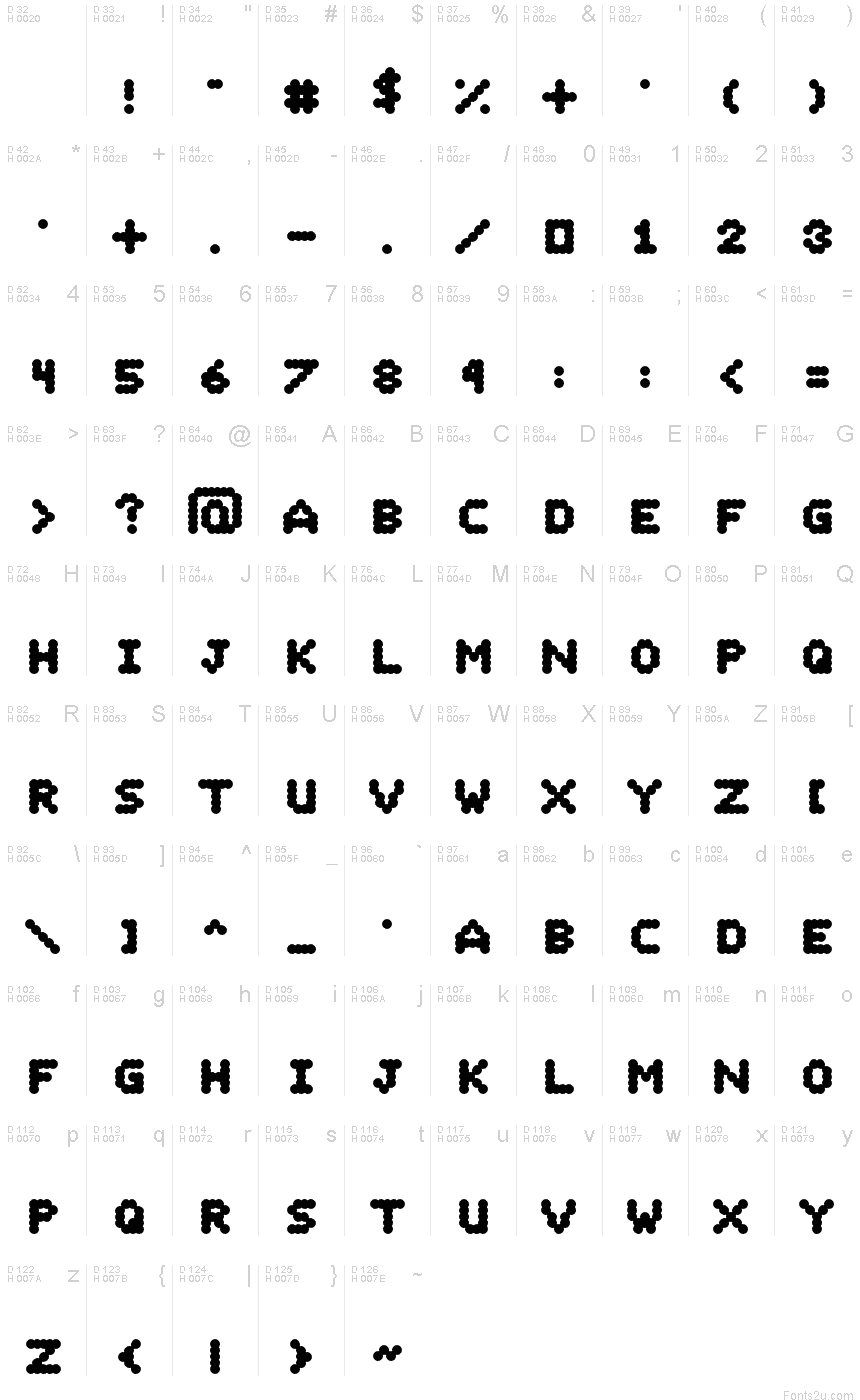
Bubble Regular
Bubble font by Sapphire11 is a free decorative display typeface that looks like it’s built from squishy, ink-black bubbles snapped tightly together. Each letter in the Bubble family feels chunky and tactile, like a string of glossy beads forming bold, blocky shapes that you can almost press with your fingertips. The tight spacing and uniform round forms create a dense, high-impact texture that instantly reads as playful and loud.
Using Bubble, headlines and wordmarks explode off the page, making this free font a natural fit for kids’ party invitations, toy or candy packaging, gaming graphics, bubble tea branding, stickers, and bold social posts. It shines when set large, where the clustered circles really show, and pairs best with a simple geometric sans serif for any supporting text to keep things readable.